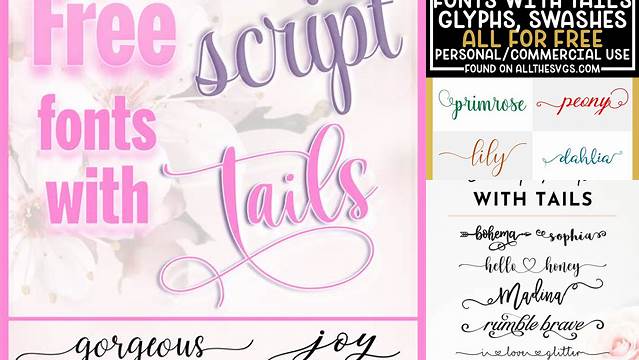
Download Free Fancy Fonts With Tails: Your Ultimate Guide
Hey everyone! Are you looking to add some flair and personality to your designs? Then you've come to the right place! Today, we're diving headfirst into the wonderful world of free fancy fonts with tails. These fonts are a fantastic way to make your text stand out, adding a touch of elegance, playfulness, or vintage charm. Whether you're a seasoned designer or just starting out, these fonts are a game-changer. This guide will explore everything you need to know about these fonts, from where to find them to how to use them effectively.
1. Unveiling the Charm of Fancy Fonts with Tails
Let's start with the basics, shall we? What exactly are free fancy fonts with tails? They are fonts that feature decorative elements, often extending beyond the main character strokes. These extensions, or "tails", add a unique visual appeal, making the text more eye-catching. The tails can vary widely in style, from subtle curves and flourishes to elaborate swashes and ornaments. These fonts are perfect for various projects, including invitations, logos, posters, and anything else where you want to make a statement. Why are these fonts so popular? Well, guys, they offer a blend of artistry and readability. While some fancy fonts can be difficult to read, fonts with tails often strike a balance, ensuring your message is both stylish and clear. When it comes to grabbing attention, free fancy fonts with tails have an upper hand. They create a memorable impression, making your design more likely to stick in people's minds. Plus, they offer a ton of creative options. You can use them for headlines, subheadings, or even short blocks of text to add visual interest. Remember, the key is to use them judiciously. Overusing these fonts can make your design look cluttered, so a little goes a long way. Think of them as the sprinkles on a cupcake – a delightful addition, but not the whole meal. And trust me, finding the right font can completely transform your project, making it more professional and visually appealing. This is where free fancy fonts with tails come into play, offering a diverse range of styles and options.
2. Finding the Best Free Fancy Fonts with Tails: Where to Look
Alright, time to find some fonts! Where do you go when you need a free fancy font with tails? There are tons of websites that provide them. One of the best places to start is Google Fonts. It has a vast collection of open-source fonts that you can use for commercial and personal projects. You can easily filter your search to find fonts with the characteristics you need, like tails. Another great source is DaFont. This site has a massive collection of fonts, categorized for easy browsing. You'll find everything from elegant script fonts with flowing tails to more quirky and playful options. Just make sure to check the license for each font. Some are free for personal use only, while others are free for commercial use. Consider exploring Font Squirrel as well. They offer a curated selection of high-quality fonts, many of which are free for commercial use. They have a section dedicated to "fancy fonts" where you're bound to discover some gems with tails. Then, you should visit Behance and Dribbble. These platforms are a great place to find designers and their creations. You can often find free fonts that designers have made available for download. Always check the license agreements before using any font in your projects to make sure you're adhering to the rules. Checking the license ensures that you're using the font legally and that you understand any limitations. With the abundance of resources available, finding the perfect free fancy fonts with tails is just a matter of exploring and discovering!
3. Key Features to Look for in Tail Fonts
So, what makes a free fancy font with tails "good"? Here are some key features to consider. First, consider the style. Do you want something classic, modern, vintage, or something else entirely? The style of the tail font should match the overall aesthetic of your design. Then, think about readability. Fancy doesn't have to mean unreadable. The best fonts balance style and legibility, so your message is clear. Next is the tail design. Examine the tails themselves. Are they flowing, delicate, bold, or geometric? The design of the tails should complement the letters and create visual interest without overwhelming the text. Consider the character set. Does the font include all the characters you need? Some fonts only include basic Latin characters, while others have extended character sets that support multiple languages. Assess the kerning and spacing. Kerning refers to the space between letters, and it affects the readability of the font. Good kerning makes the text look more balanced and professional. Check for weights and styles. Does the font come in multiple weights (like light, regular, bold) and styles (like italics)? Multiple weights and styles give you more design flexibility. Always download a font and test it out before using it in a project. Type out some text in different sizes and see how it looks. Ensure the font performs well on various platforms and devices, if you are creating digital designs. Make sure it is optimized for the right platforms and devices. Remember, finding the right font is a bit like finding the right shoe. You want something that looks great, feels comfortable, and fits perfectly. Make sure to examine the key features when looking for free fancy fonts with tails.
4. The Best Free Tail Fonts for Various Design Styles
Ready to get some recommendations? When it comes to free fancy fonts with tails, the options are endless, but here are some popular suggestions for different styles. For a classic, elegant look, try searching for fonts like "Great Vibes". It has beautiful, flowing tails that are perfect for invitations and formal designs. If you are looking for a modern, minimalist style, look for fonts with simple, clean letterforms. You can find options like "Playfair Display", that have a touch of elegance with some subtle tails. For vintage and retro designs, try looking for fonts inspired by the Art Nouveau and Art Deco eras. Fonts like "League Gothic" or "ChunkFive Ex" bring a vintage vibe with their unique shapes and elegant tails. If you are aiming for a playful look, you can find fonts like "Dancing Script", which has a handwritten style. This font creates a friendly, approachable feel. For bold headlines, consider fonts like "Black Han Sans". This font is a good choice for making your titles stand out with a modern touch. For a script style font, consider using "Allura". It is a stunning option to get a fancy look in your design. Always experiment with different fonts and see what works best for your project. Remember, the best font is one that fits your design's mood. With some exploration, you're sure to discover some amazing free fancy fonts with tails that fit your design.
5. How to Effectively Use Free Fancy Fonts with Tails in Your Designs
Alright, you've downloaded some cool free fancy fonts with tails. Now what? Here are some tips for using them effectively. First, choose the right font for the right project. A formal font is great for invitations, while a playful font might work for a children's book cover. Use the fonts sparingly. They work best in headlines, titles, and short blocks of text. Using them for long paragraphs can make your text difficult to read. Pair your fonts carefully. Combining a fancy font with a simple, easy-to-read font for body text is a good approach. Think of it like pairing a statement necklace with a simple outfit. Consider the size and scale. Make sure your fancy font is large enough to showcase its details. In smaller sizes, the tails might get lost or the text might become unreadable. Make sure there is enough contrast. Contrast helps make your text stand out. The tails are more visible if there's a stark difference between the text and the background. Think about the color. Use a color palette that complements your font and adds to the overall design. Choose a color that helps the font's features stand out. Always test readability. Print out your design or view it on different devices to see how the font looks at various sizes. Always check to see if the free fancy fonts with tails that you are using looks good.
8. Testing Your Tail Fonts for Readability and Display
Okay, you've got your free fancy fonts with tails installed. It's time to test them out! You want to make sure they look good and are easy to read. Start by testing the font in different sizes. See how it looks at various sizes, from headlines to body text. Ensure the tails are visible at smaller sizes and that the text is not cluttered. Next, test your font on different backgrounds. See how it looks against light and dark backgrounds. Make sure there's enough contrast between the text and the background for easy reading. You can also test it out on different devices. Your design may be viewed on a computer, phone, or tablet. See how the font looks on all these devices. Remember to print out your design to see how it looks in the real world. Use a test sentence that includes all the letters in the alphabet to see all the characters and how they interact. Pay attention to kerning and spacing. Make sure the letters are not too close together or too far apart. Try different weights and styles. See how the font looks in bold, italic, or other styles. Remember that proper testing is important when using free fancy fonts with tails.
30. Conclusion: Unleashing the Potential of Free Fancy Fonts with Tails